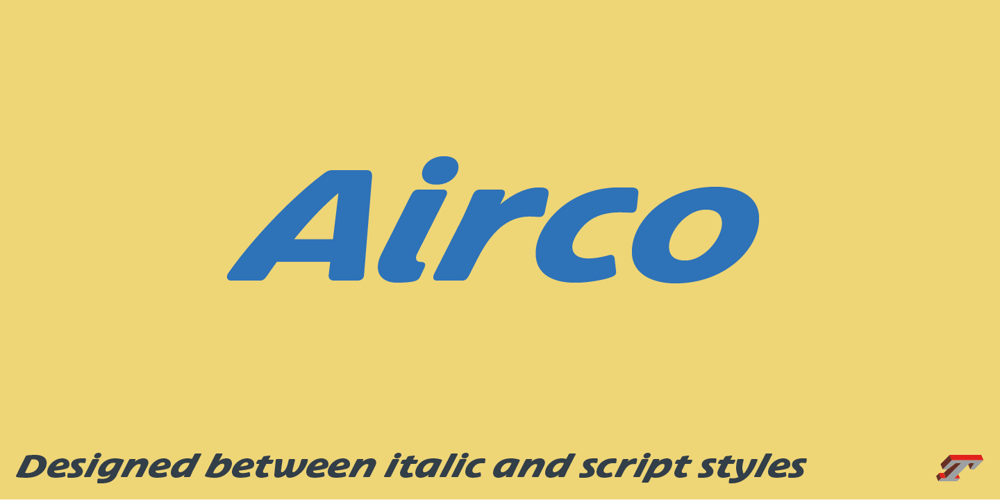
Airco Std
Airco Std Font Family was designed by Jean François Porchez and published by Typofonderie. Airco Std contains 1 styles and family package options. Designed between italic and script stylesAirco is a typeface designed between italic and script styles. The letterform finish is rounded. Designed ultra slanted (27°), the shapes evoke a fast and assertive movement. The result is a human typeface, dynamic, that will visually work well in technology and sport, without ever being dry, rigid or dehumanized. The structure of the letters is influenced by Renaissance italics, at the difference that in the case of Airco, the lowercases and capitals are visually homogeneous thanks to the giants lowercases. In fact, the default numerals can be used in capital as well lowercases settings.